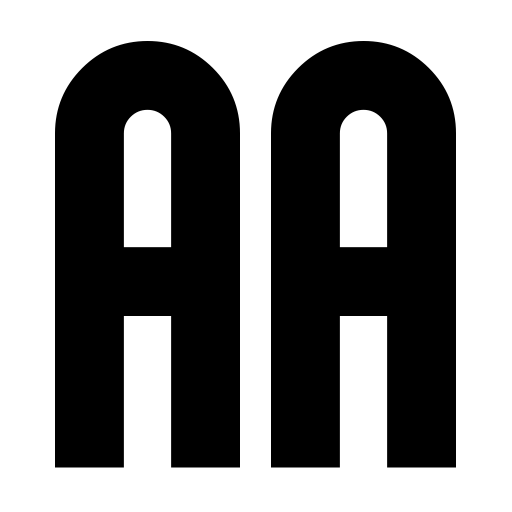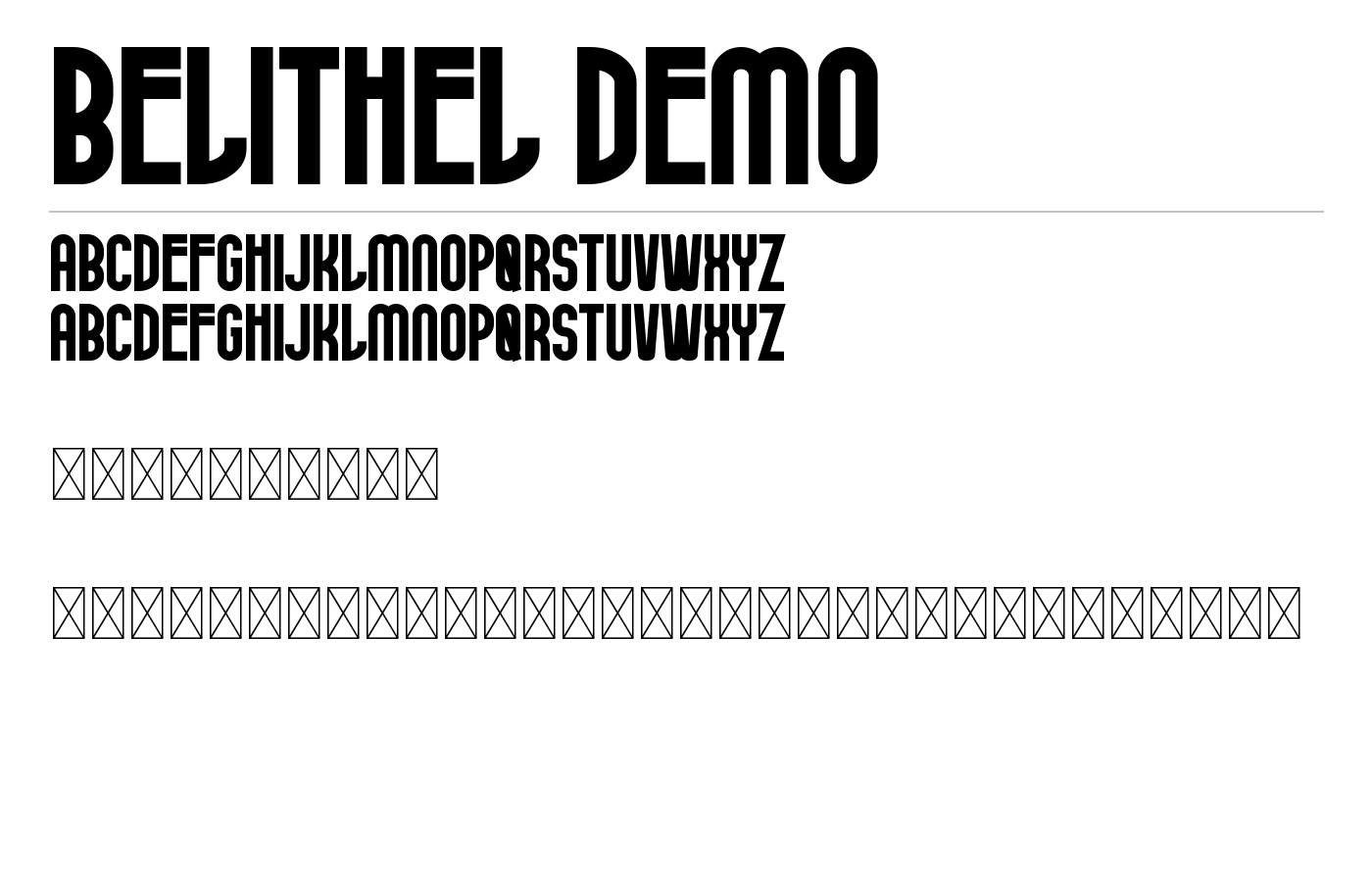
Belithel Demo is a bold, condensed sans serif font with a strong geometric influence and distinctive, slightly rounded letterforms that give it a modern yet playful character. Its tall x-height and uniform stroke weight create a compact, impactful appearance, making it ideal for eye-catching headlines, logos, and branding where a confident and unique style is desired. This font works particularly well in contemporary design contexts that need a blend of boldness and creativity without sacrificing clarity.
Belithel Demo Font
About Belithel Demo Font
| Font family | Belithel Demo Font |
| Designer | Nouval & Suci Anita |